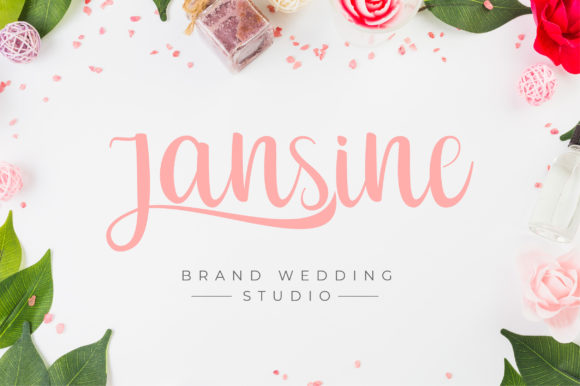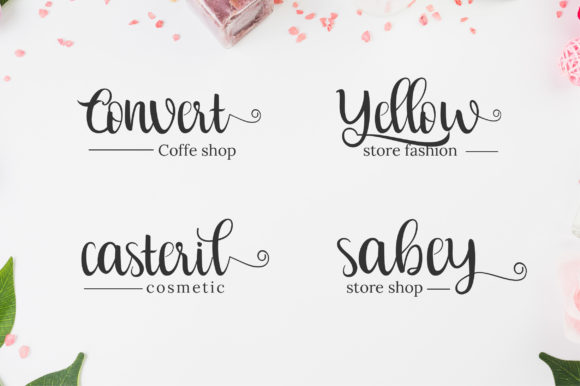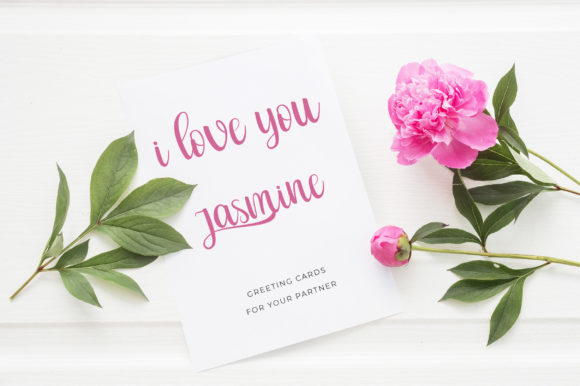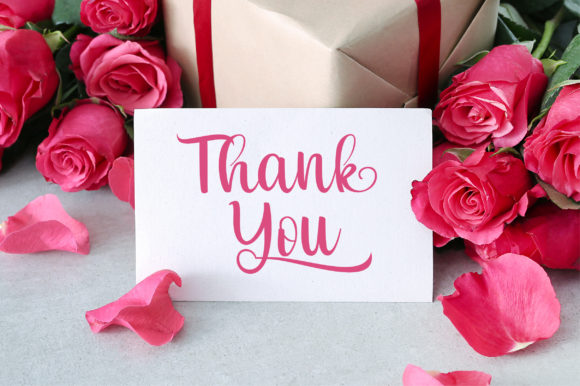
Introduction to Laurent Font
Have you ever been working on a creative project, and suddenly, you’re stuck on finding the perfect font to bring your vision to life? You’ve got a clear idea of what you want to convey, but the right words just aren’t falling into place. This is where the magic of a high-quality font comes in – and that’s exactly what the Laurent Font has to offer.
Laurent Font is a charming, handwritten font that exudes warmth and romance. Its round and flexible design makes it perfect for adding a personal touch to any project, whether it’s a wedding invitation, a social media graphic, or a children’s book. With its transparent background, you can easily layer it with other design elements to create a cohesive and visually appealing look.
Key Features of Laurent Font
- High-quality, professional font suitable for creative projects, designed as a valuable design resource.
- Comes with a transparent background, making it easy to overlay on images or use as a standalone design element.
- Includes 6 styles (Thin, Light, Regular, Medium, Bold, Black) for added versatility in design projects.
- Unique, elegant design makes it an ideal choice for luxury brands, high-end products, and sophisticated creative projects.
Honest Review: Laurent Font
I recently stumbled upon the Laurent Font and I must say, it’s a fantastic addition to any designer’s toolkit. As a creative project, it offers a high-quality, versatile font that can be used for a wide range of designs.
One of the things that works well about the Laurent Font is its transparent background, which makes it easy to use on any design project. The font is also free to download, which is a major plus in my book.
Here are some of the features that I love about the Laurent Font:
- May not be suitable for very formal or professional designs
- Some users may find the font a bit too playful or casual
Overall, I’m really impressed with the Laurent Font. It’s a great design resource that’s perfect for creative projects. While it may have some limitations, I think it’s a great addition to any designer’s toolkit.
Laurent Font
Laurent Font is a high-quality design resource ideal for creative projects requiring a sophisticated and elegant look. Its transparent background makes it versatile for use in various design applications.
Tips for Getting the Most Out of Laurent Font
For optimal results, use Laurent Font in conjunction with other high-quality design resources. Experiment with different font sizes and styles to achieve a unique look. Consider using a transparent background to add depth to your design.